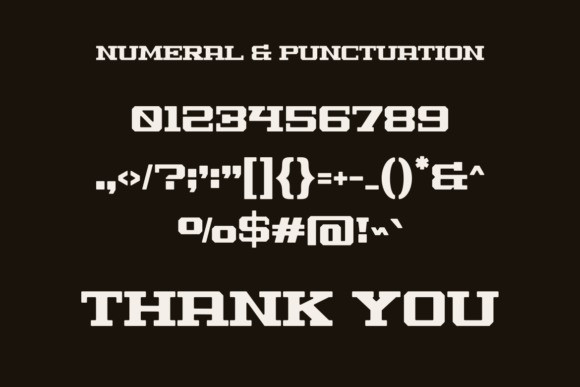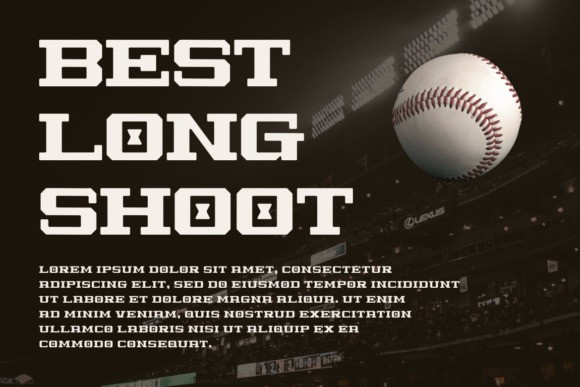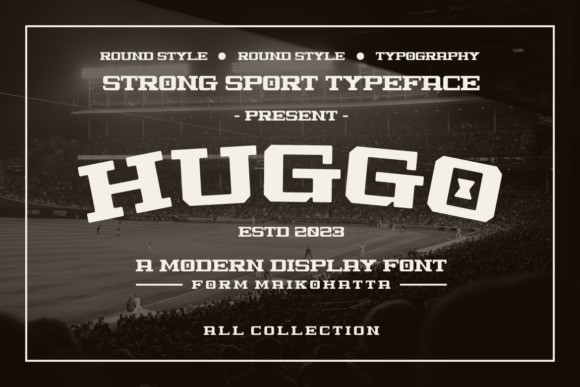
Huggo Font
Huggo Font has a strong personality which makes it a perfect choice for display projects. Perfectly suited for a wide range of applications from branding and logos, to candy and food packages. The font’s versatility makes it suitable for a wide range of design projects, including branding, editorial layouts, web design, packaging, and signage
Classification: Display Fonts, Slab Serif Fonts